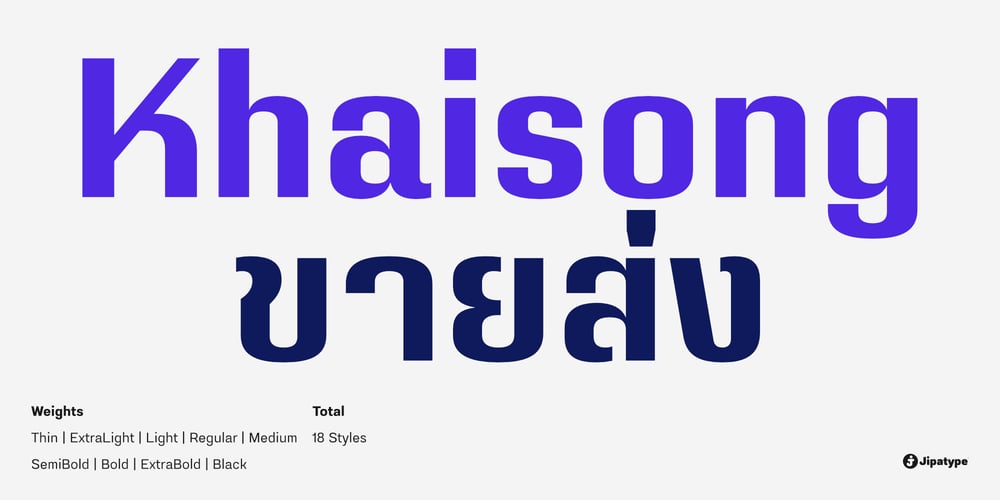
Khaisong Font Family was designed by Anupap Jaichumnan and published by Jipatype. Khaisong contains 18 styles and family package options. Khaisong is a contrast sans-serif font with geometric characteristics. It conveys a formal but not rigid feeling, maintaining simplicity. This makes it suitable for promotional materials that aim to communicate business and corporate content while keeping readability and professionalism. The font consists of 18 styles, covering weights from the thin to the black weight, and supports both Latin 1 and Thai character sets.